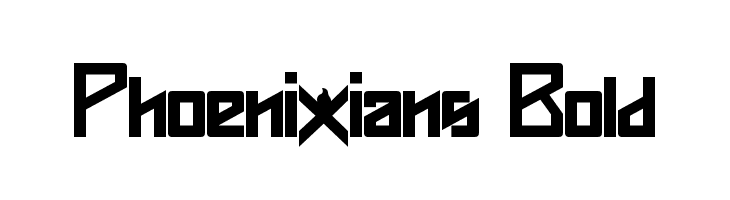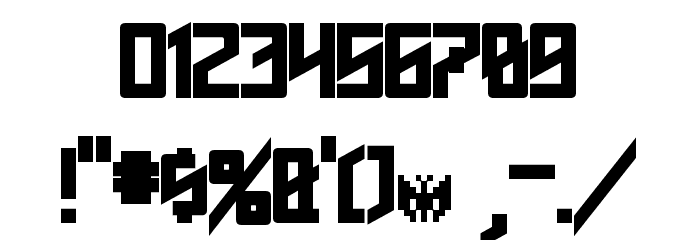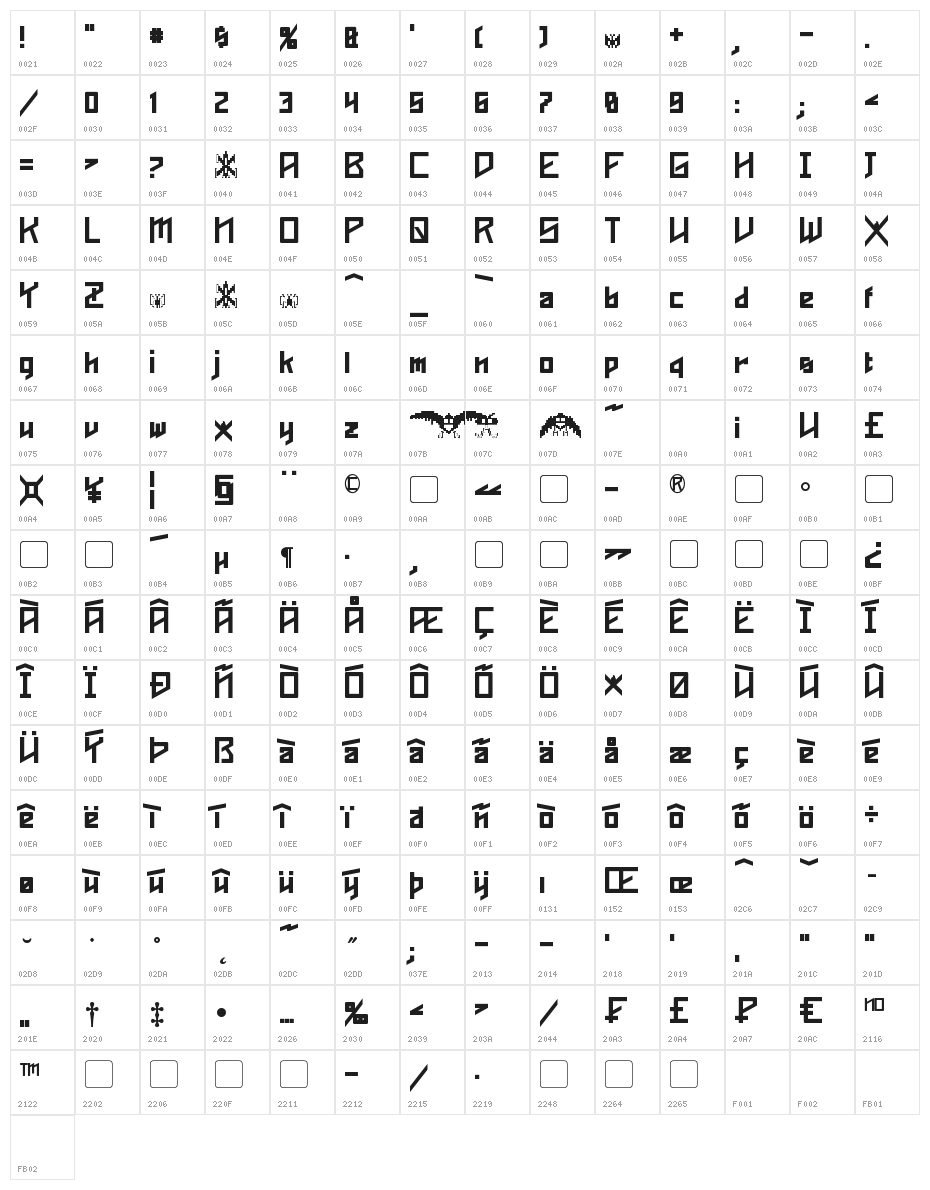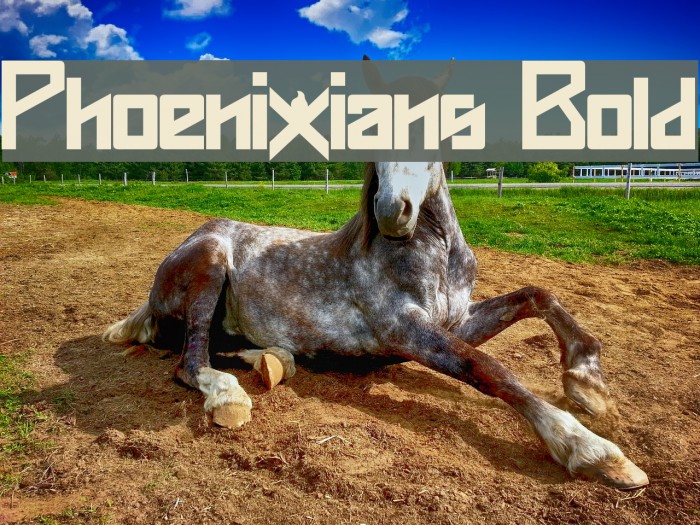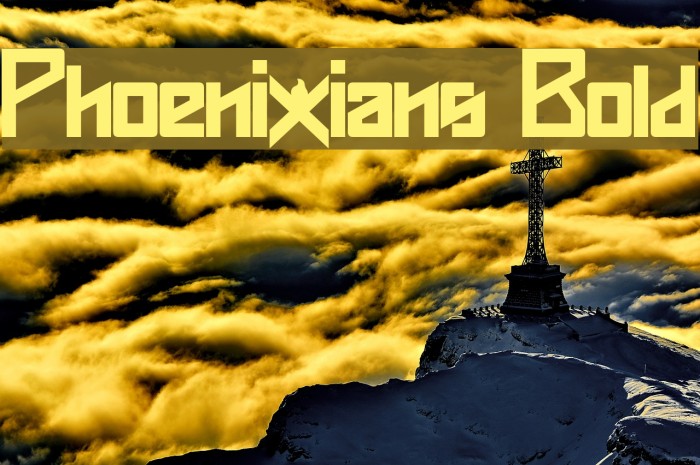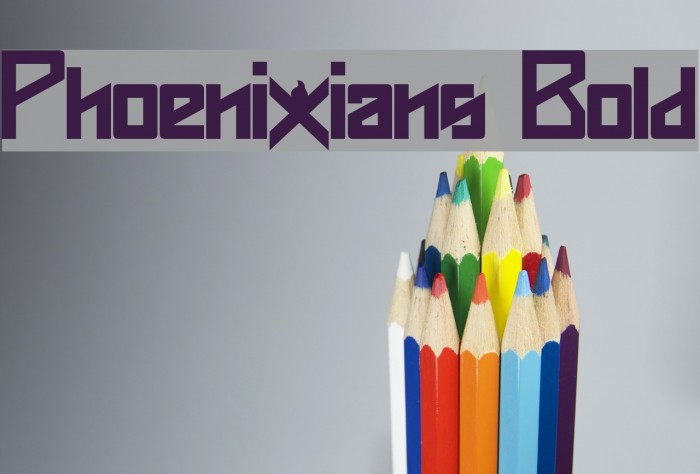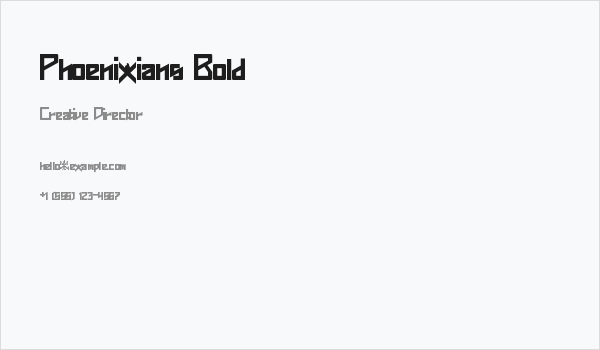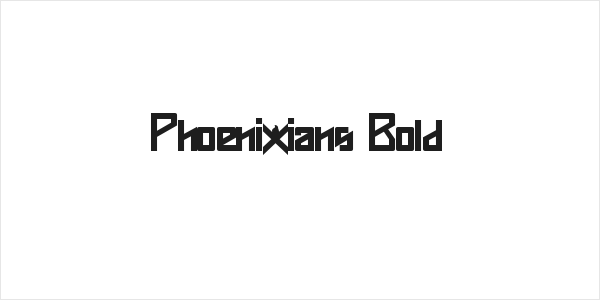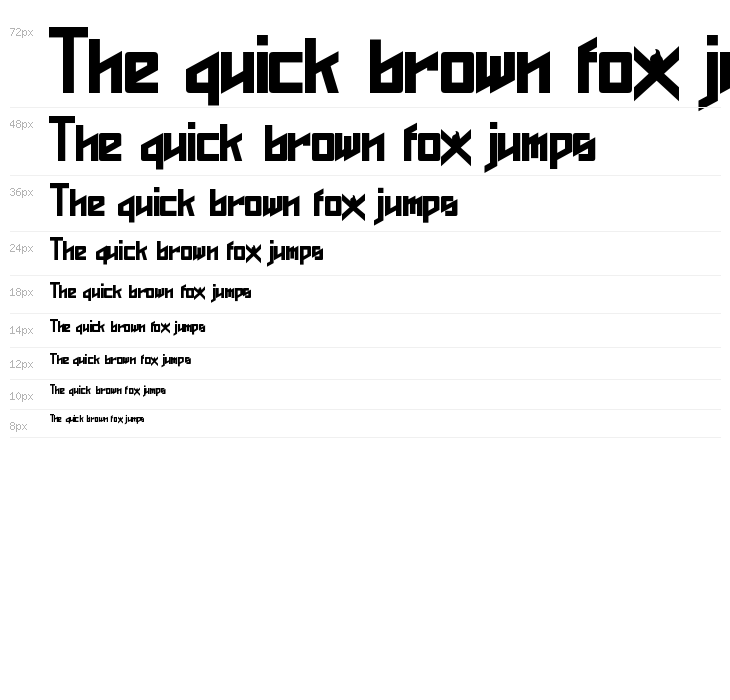
Phoenixians Bold Font
Phoenixians Bold Description
This font features a bold and geometric design, characterized by sharp angles and a futuristic aesthetic. The uppercase and lowercase letters maintain a consistent style, with angular cuts and a blocky appearance that gives a sense of strength and modernity. Numbers and special characters follow the same design principles, ensuring uniformity across all glyphs. The font's unique style makes it stand out, with a distinct edge that is both eye-catching and memorable. Its boldness is evident in the thick strokes and the overall weight of the characters, making it suitable for impactful designs.
| Proposed Projects | Ideal for sci-fi themed projects, video game titles, posters, and branding that requires a modern and edgy look. |